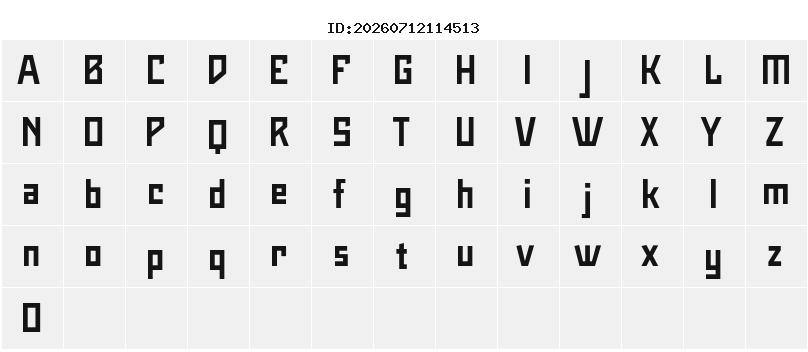
• Font Name: Maiers Neue Nr.8 Pro reduced
• Font Style: Halbfett
• Full Font Name: MaiersNeueNr.Proreduced-Halbfet
• PostScript Name: MaiersNeueNr.Proreduced-Halbfet
• Designer: Ingo Zimmermann, Karl O. Maier
• Manufacturer: ingoFont Augsburg, Ingo Zimmermann. Aus: Schriften=Sammlung fuer Techniker. Herausgegeben von Karl O. Maier.
About Maiers Neue Nr.8 Pro reduced.otf
Maiers Neue Nr.8 Pro reduced.otf is a modern, elegant sans-serif font designed for ultimate readability and visual harmony. Perfect for branding, headlines, web design, and print materials.